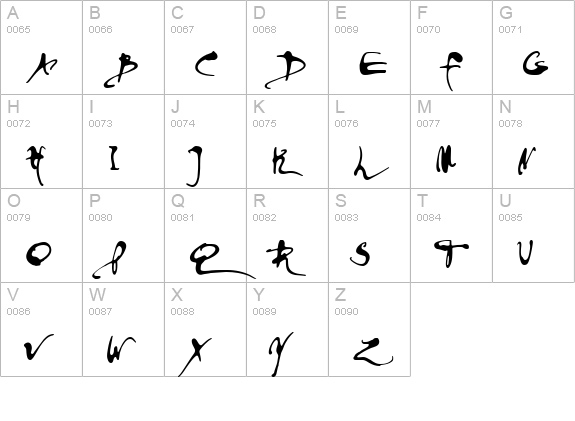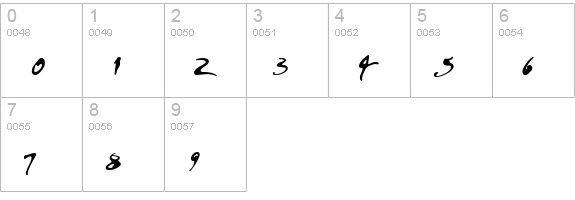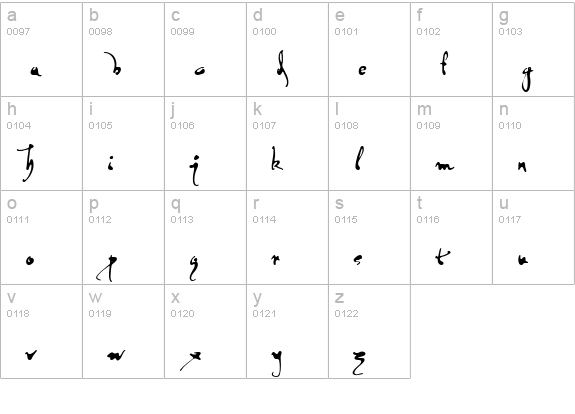
PFDaVinciScriptPro-Inked Font Details
PFDaVinciScriptPro-Inked font is a stunning and elegant script typeface that exudes sophistication and charm. With its delicate strokes and flowing curves, this font is perfect for adding a touch of class to any design project. The inked texture adds a unique and artistic flair, making it stand out from other script fonts. The best part? PFDaVinciScriptPro-Inked font is completely free to download at FontsMarket.com. Whether you're working on invitations, logos, branding, or any other creative endeavor, this font is sure to elevate your work to the next level. Embrace the beauty and versatility of PFDaVinciScriptPro-Inked font and make your designs shine.